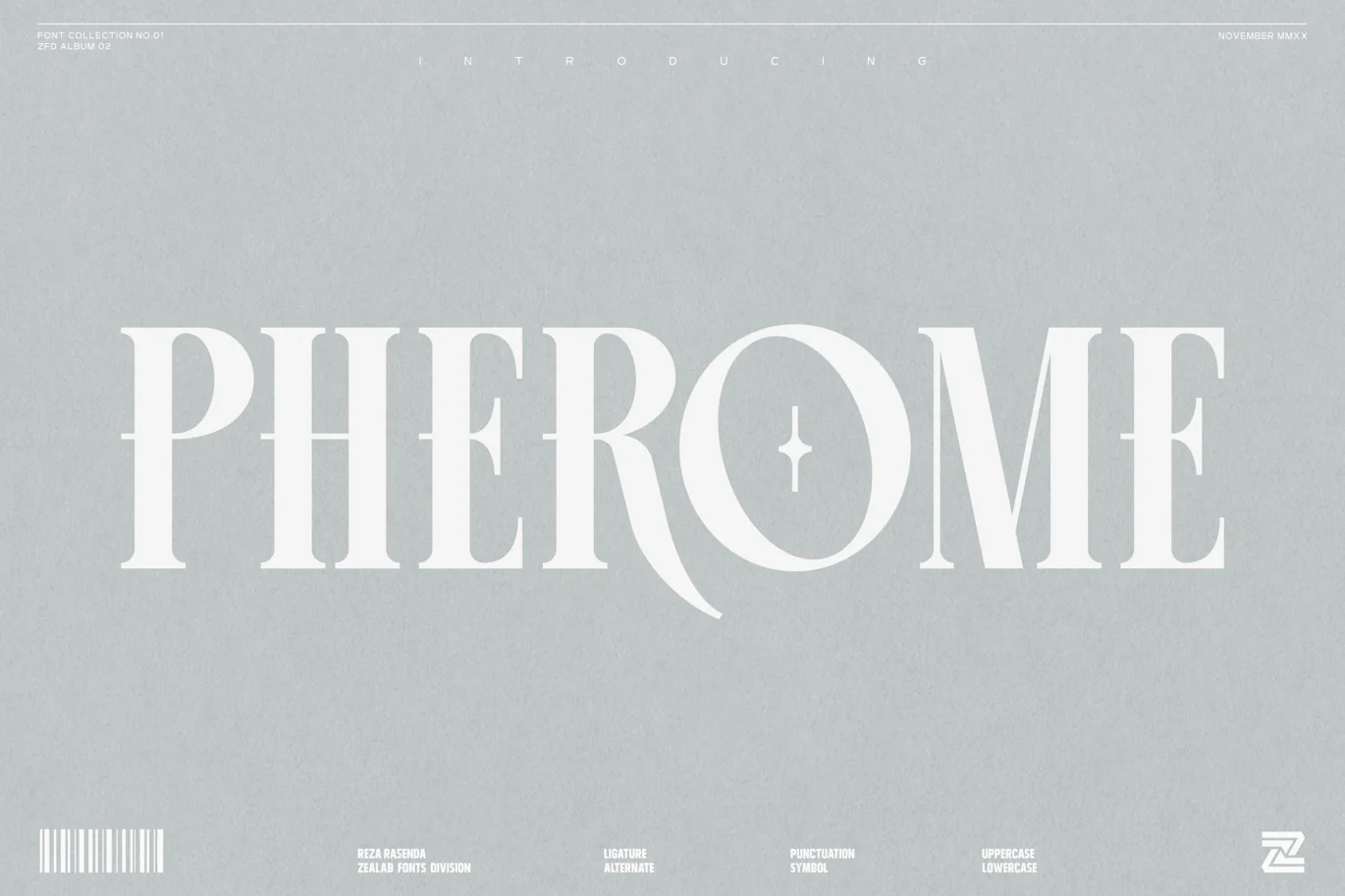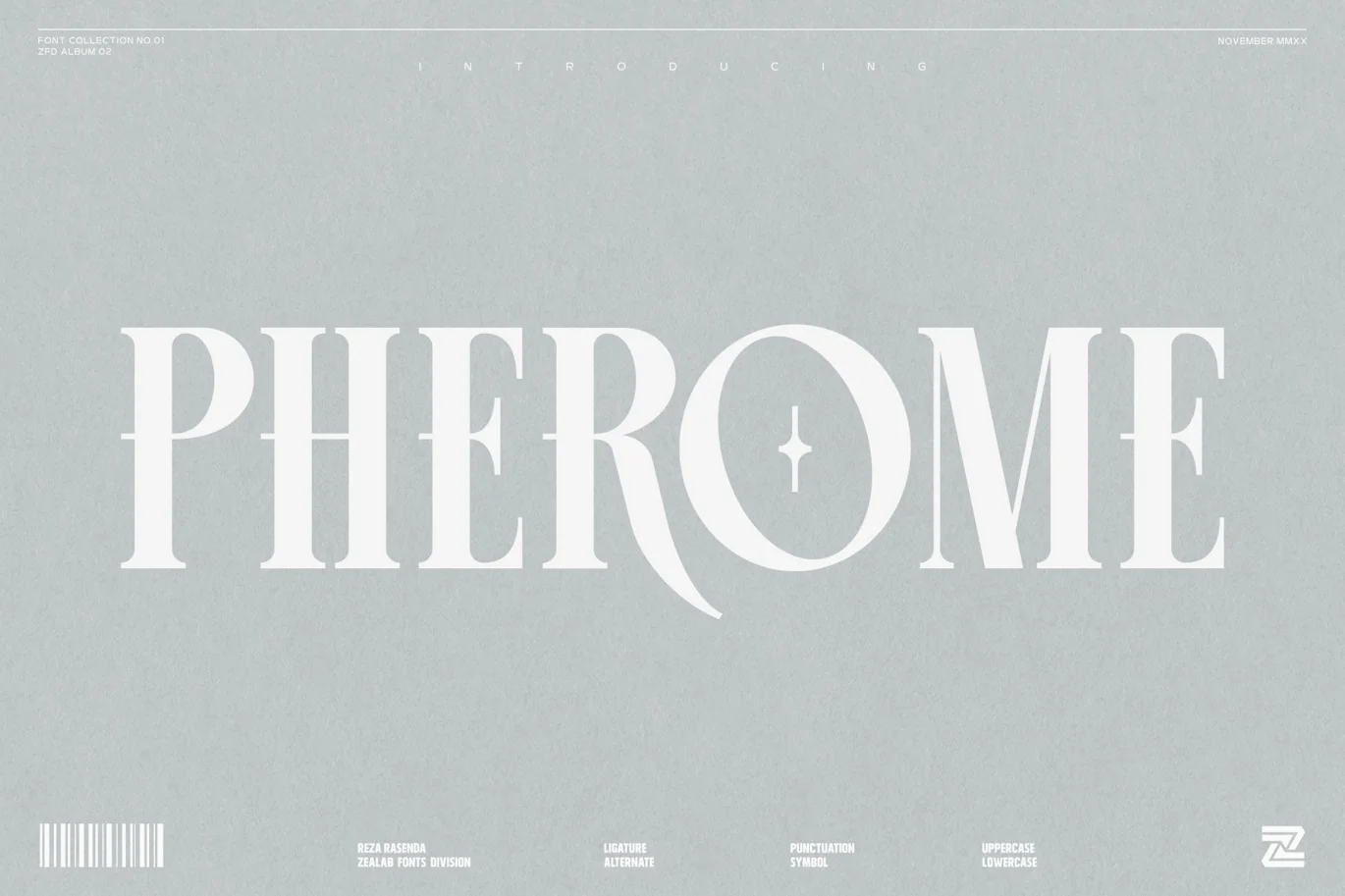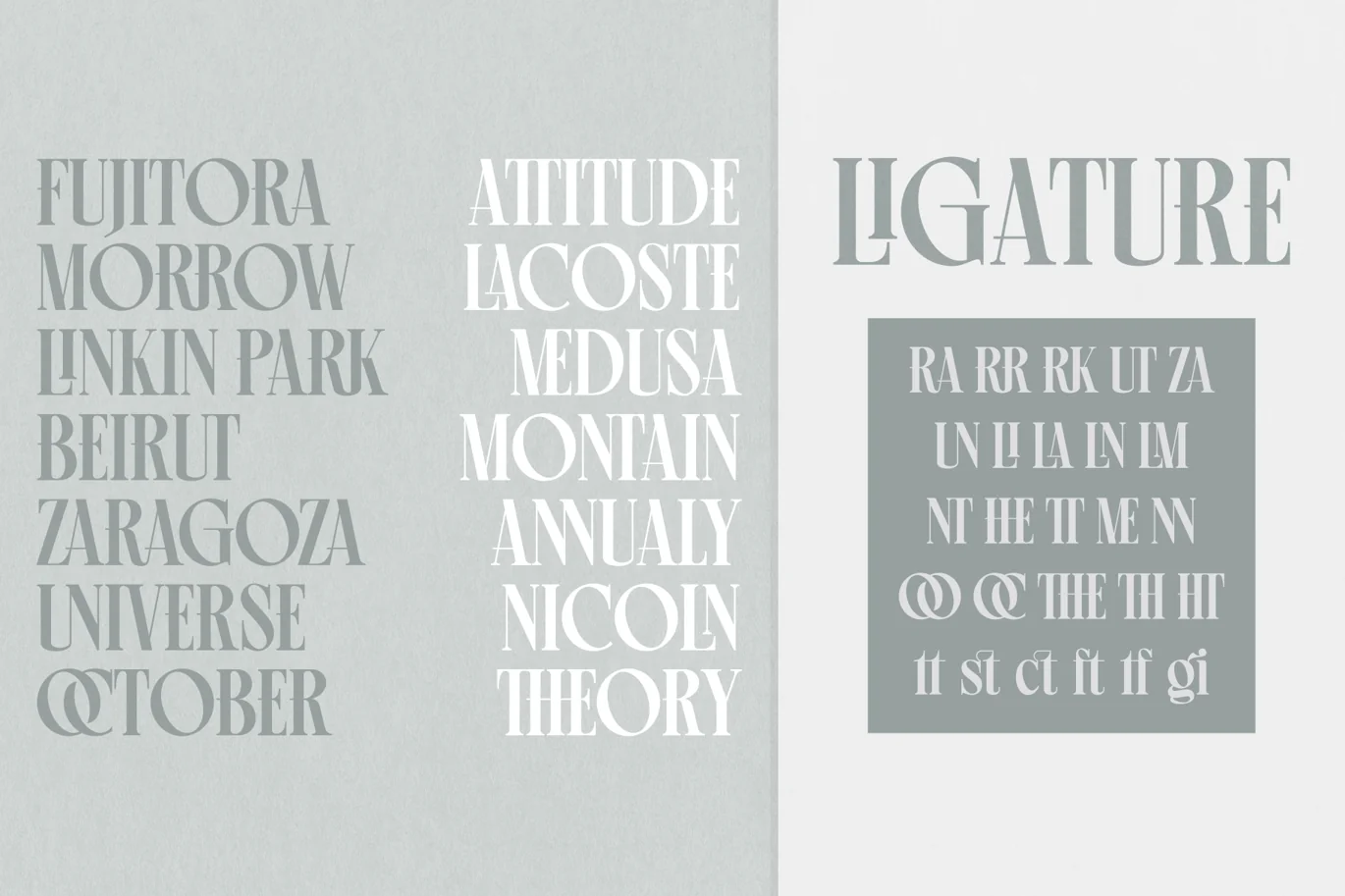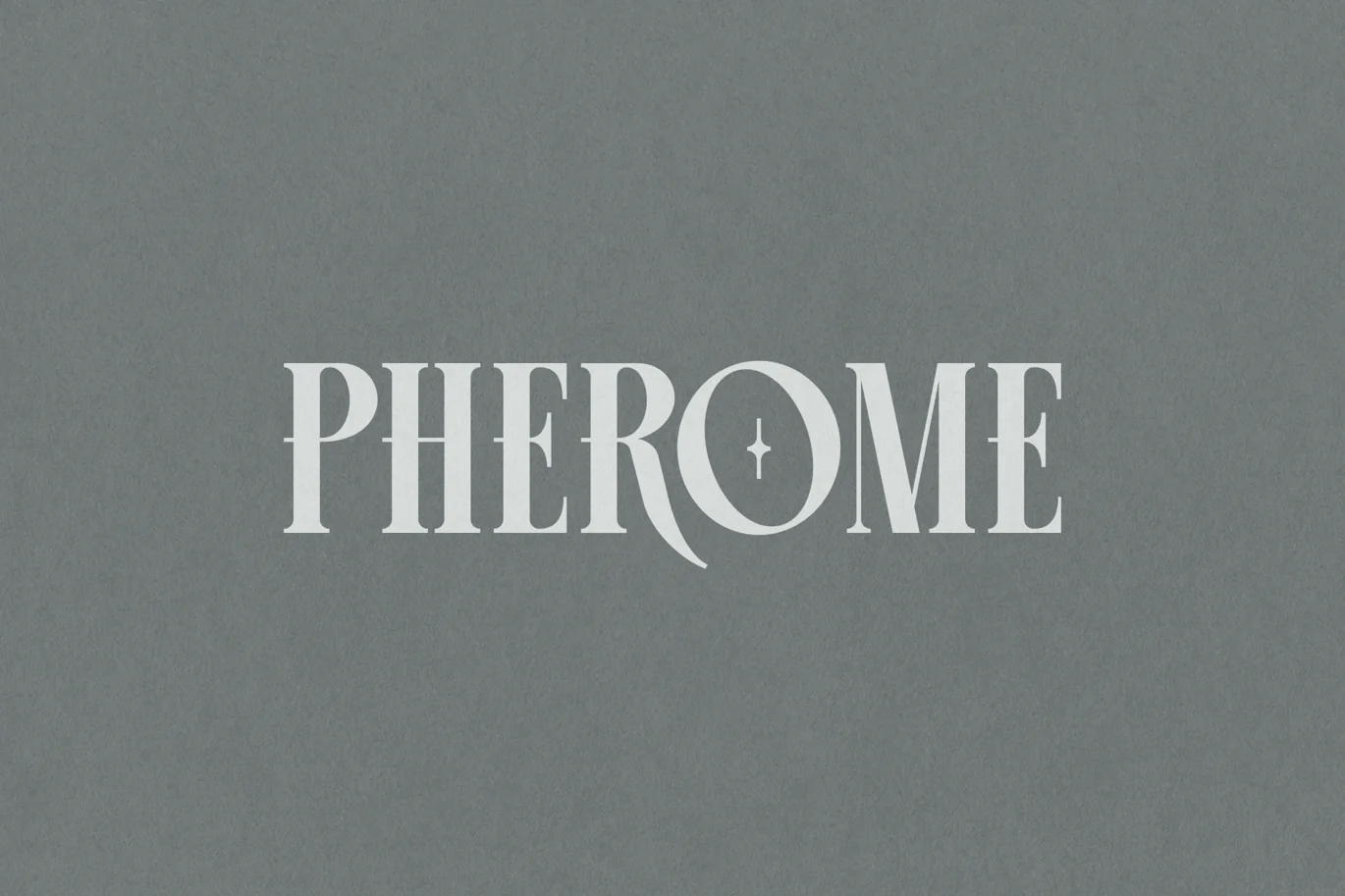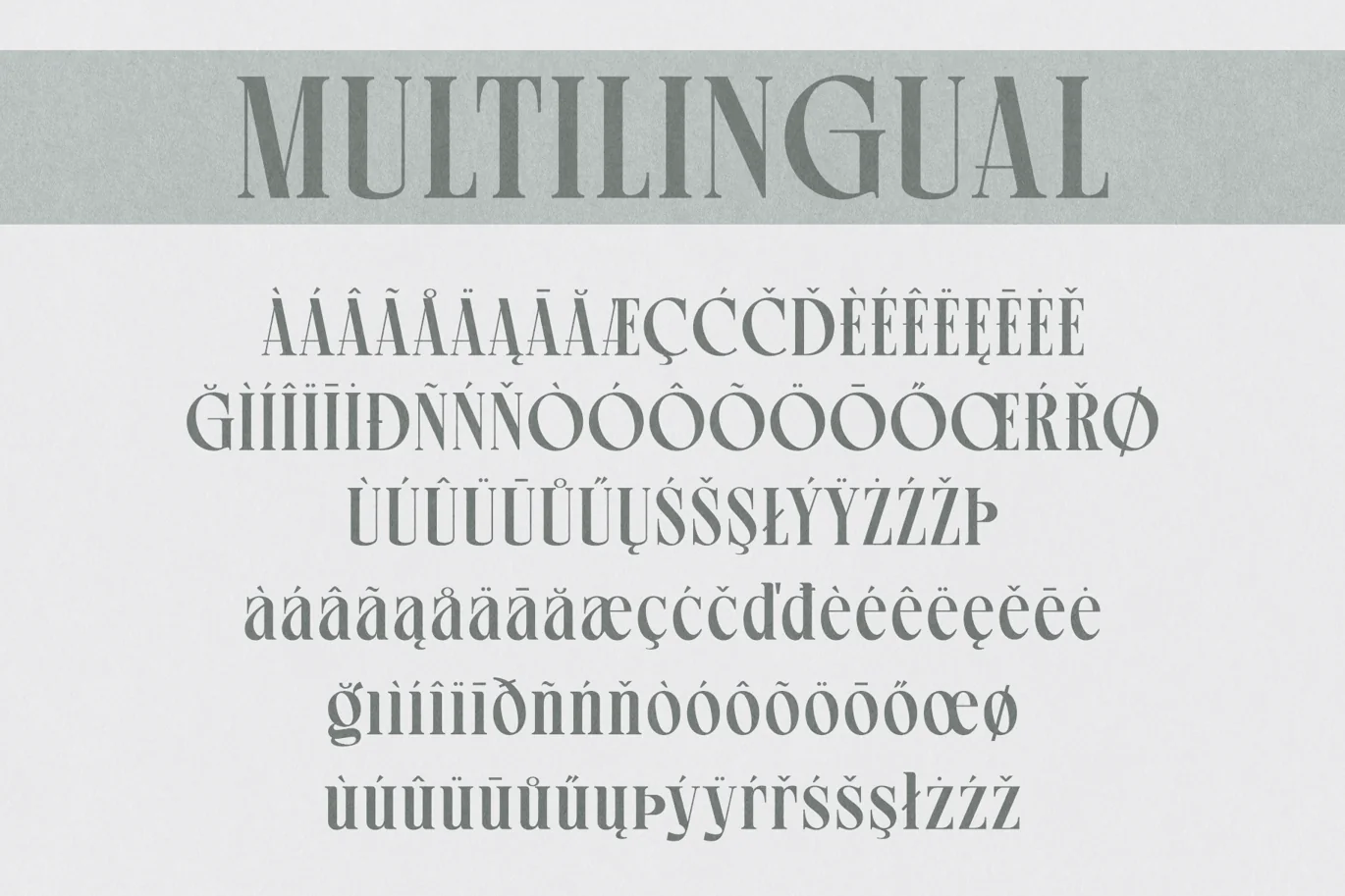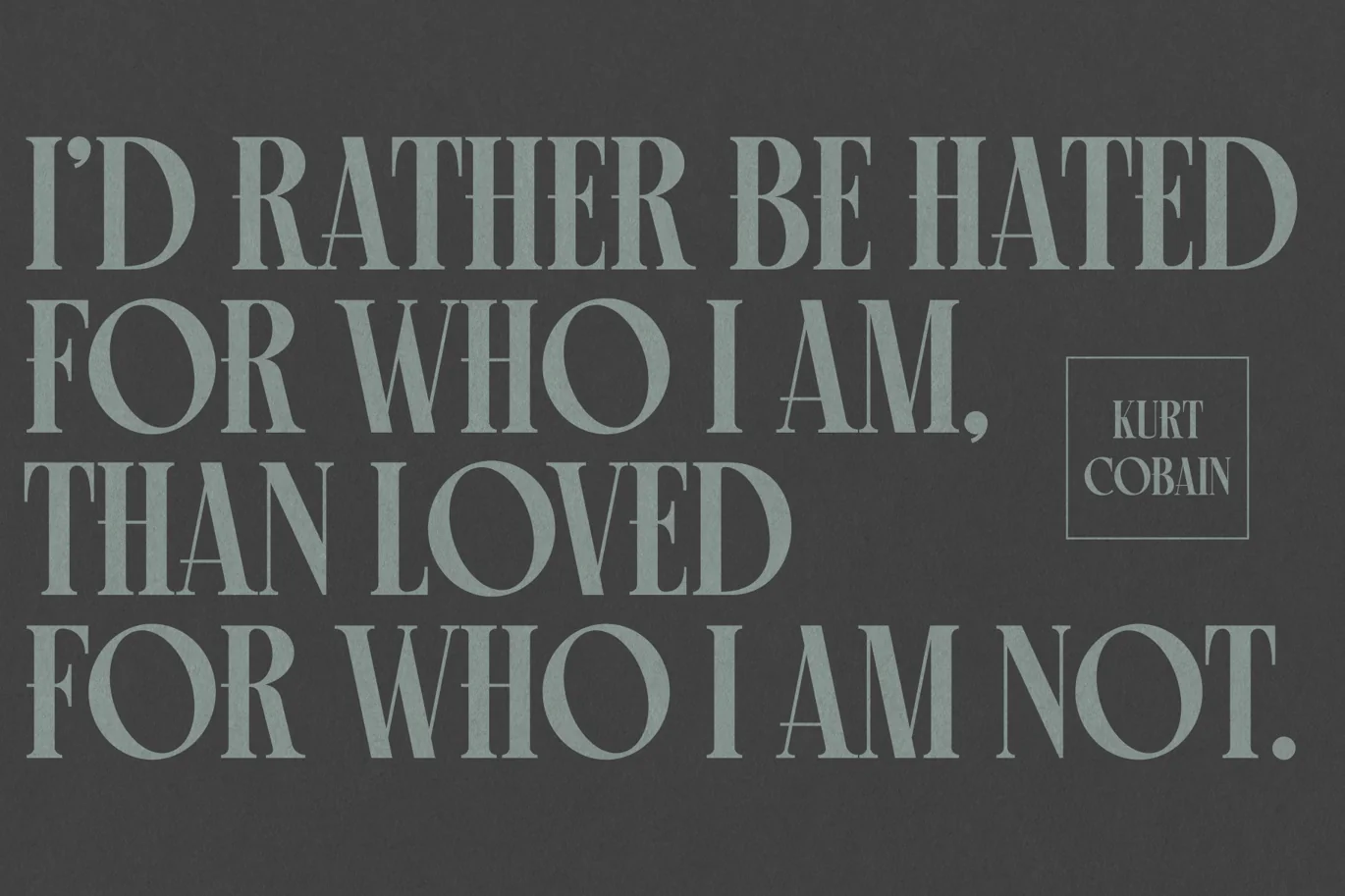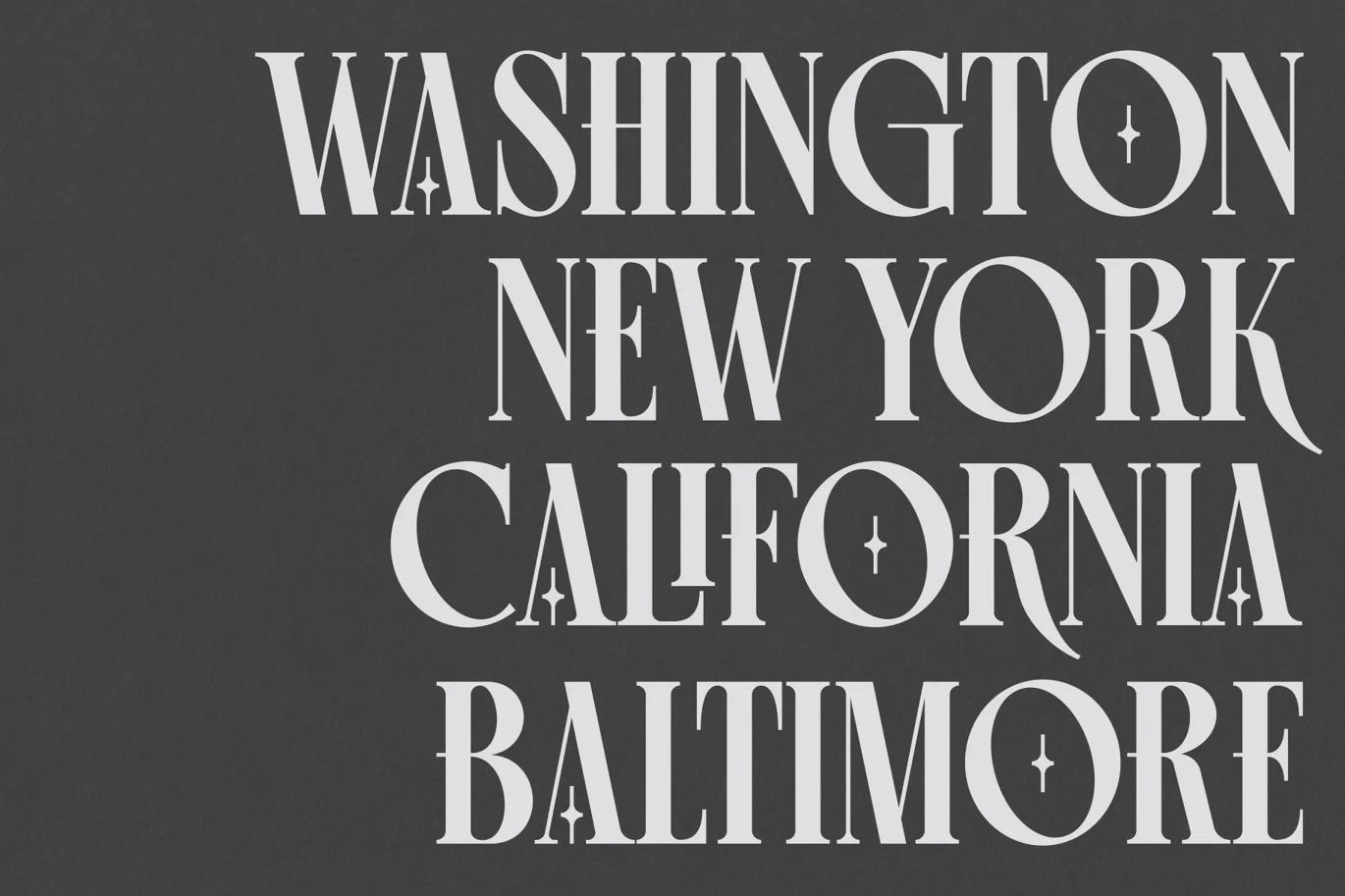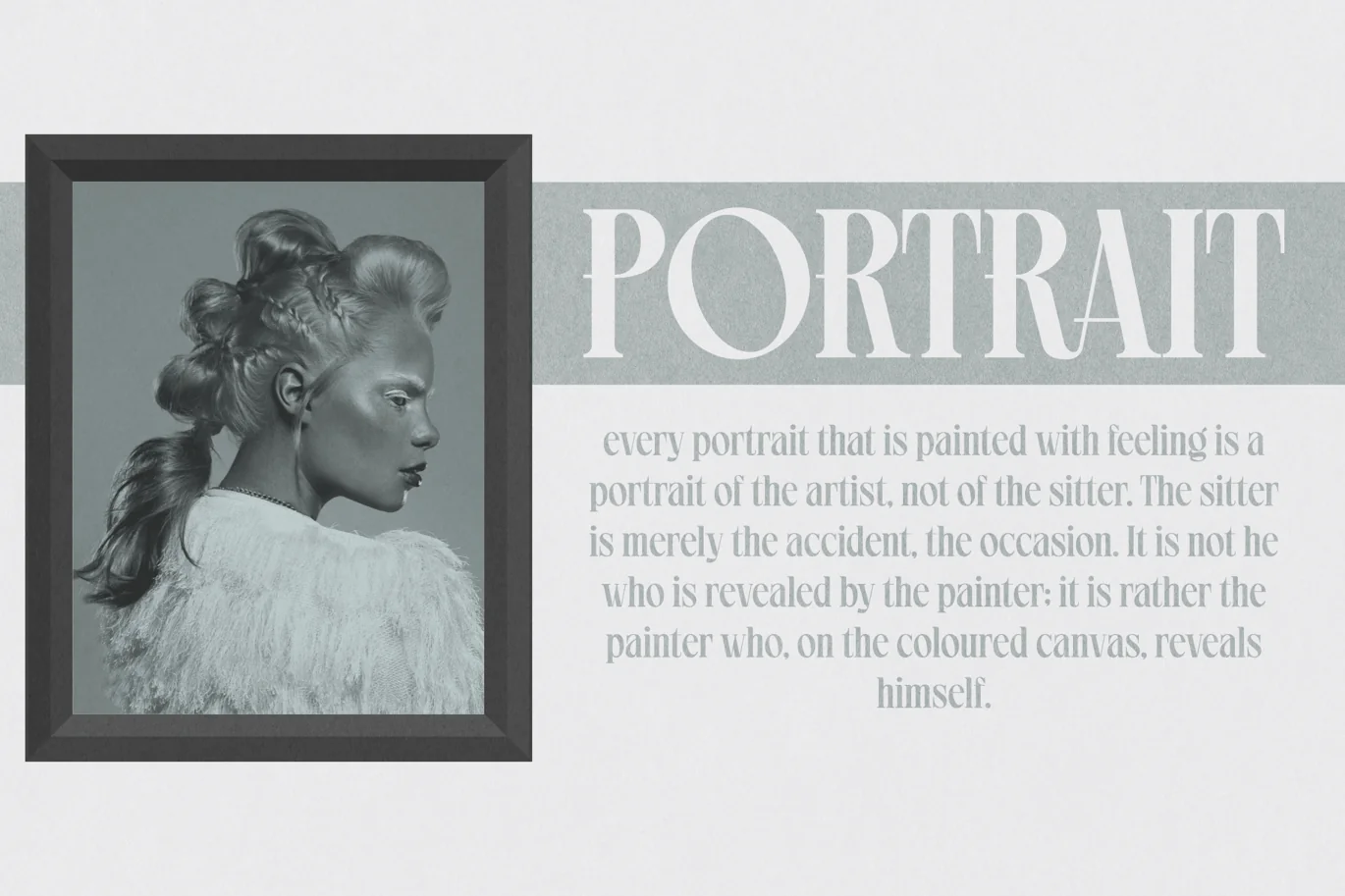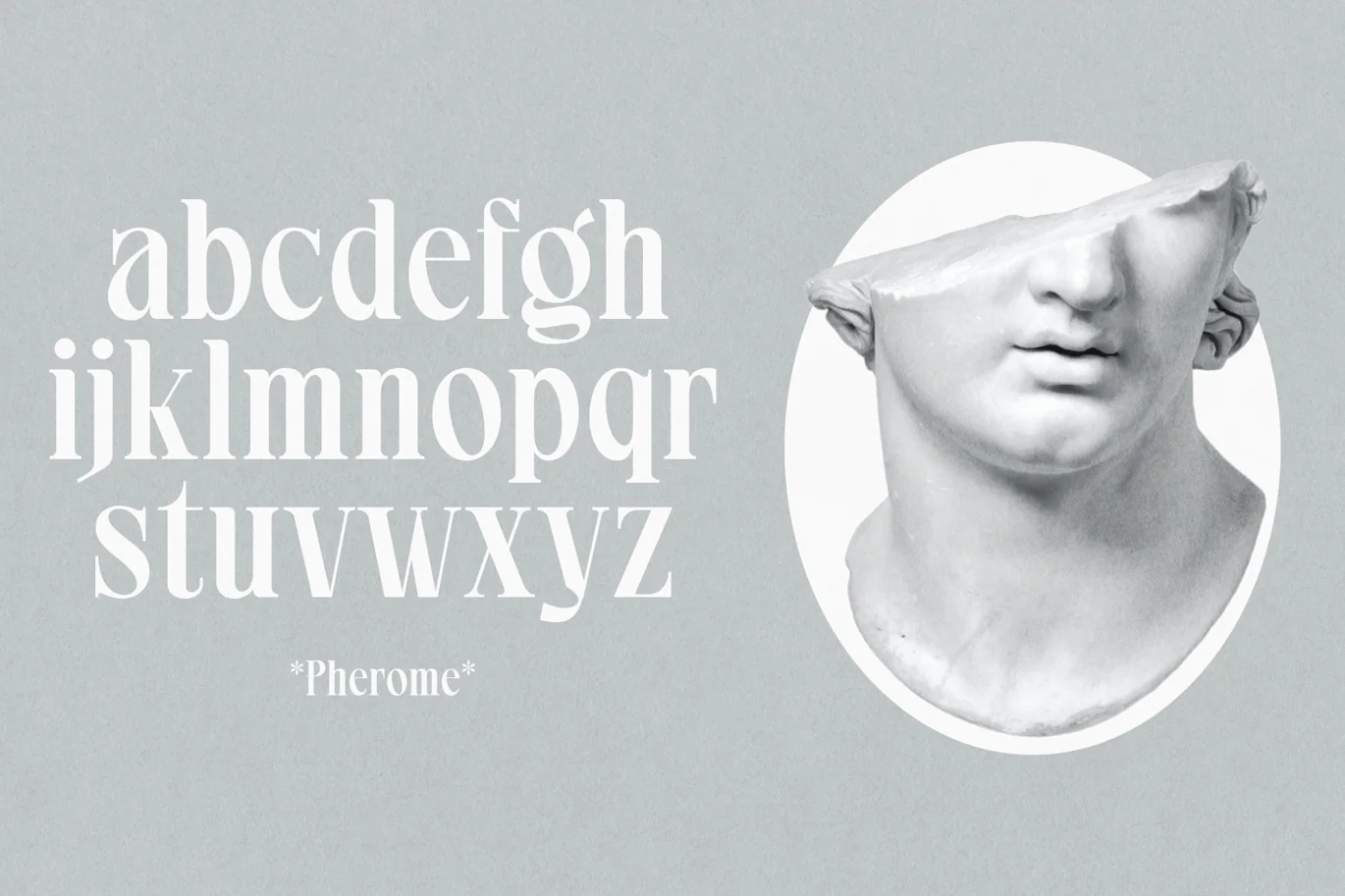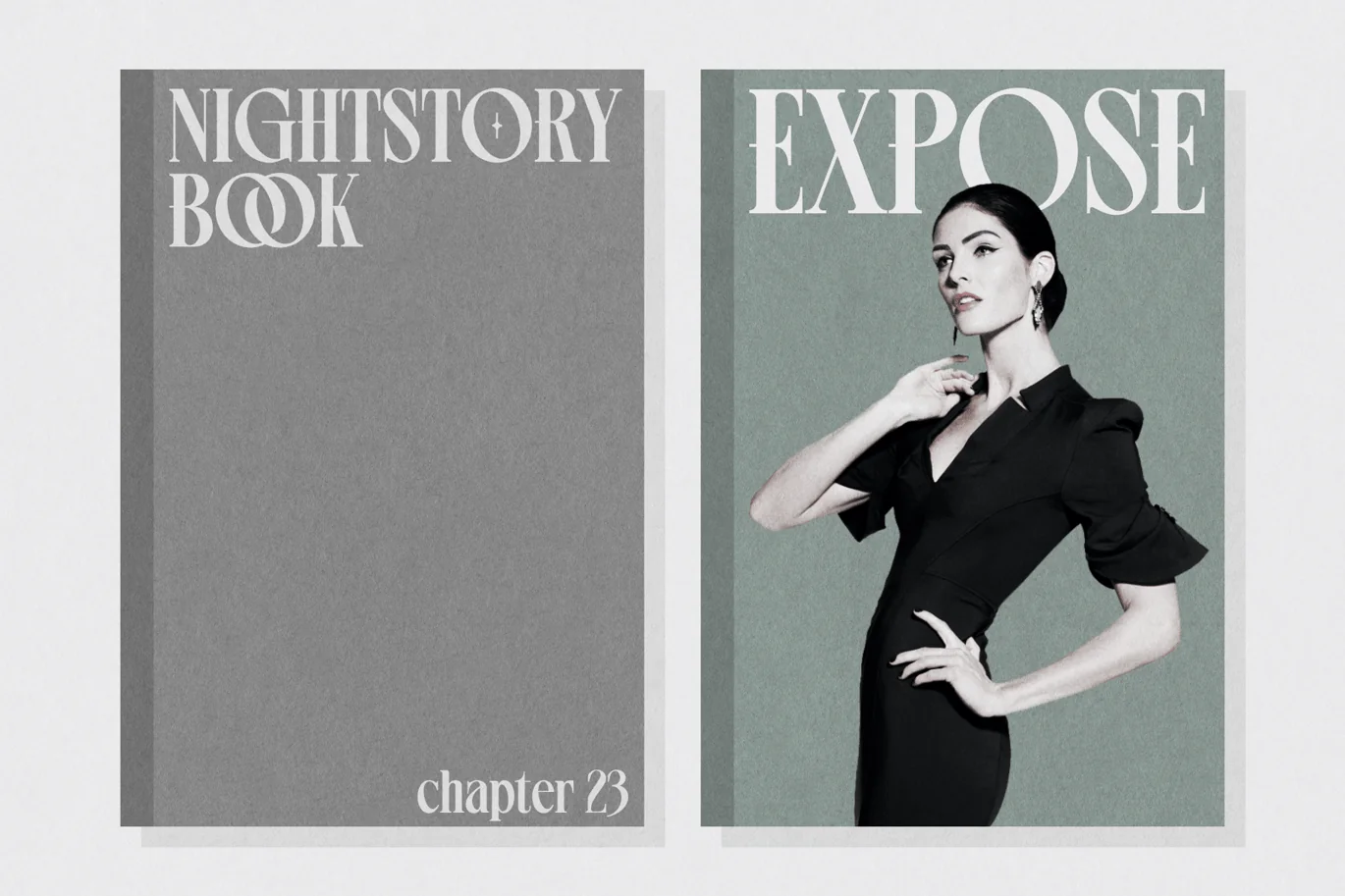
Pherome Display Font
Pherome is a versatile, modern and elegant sans serif font. Designed by Reza Rasenda & Riska Candra Dewi, It has a unique style with stylistic, alternates, ligatures and supports multilingual languages.
Create unique & beautiful logotype, use it as an elegant solution for your next magazine layout, or choose Pherome for any graphics that require a sleek look with a elegant flair.